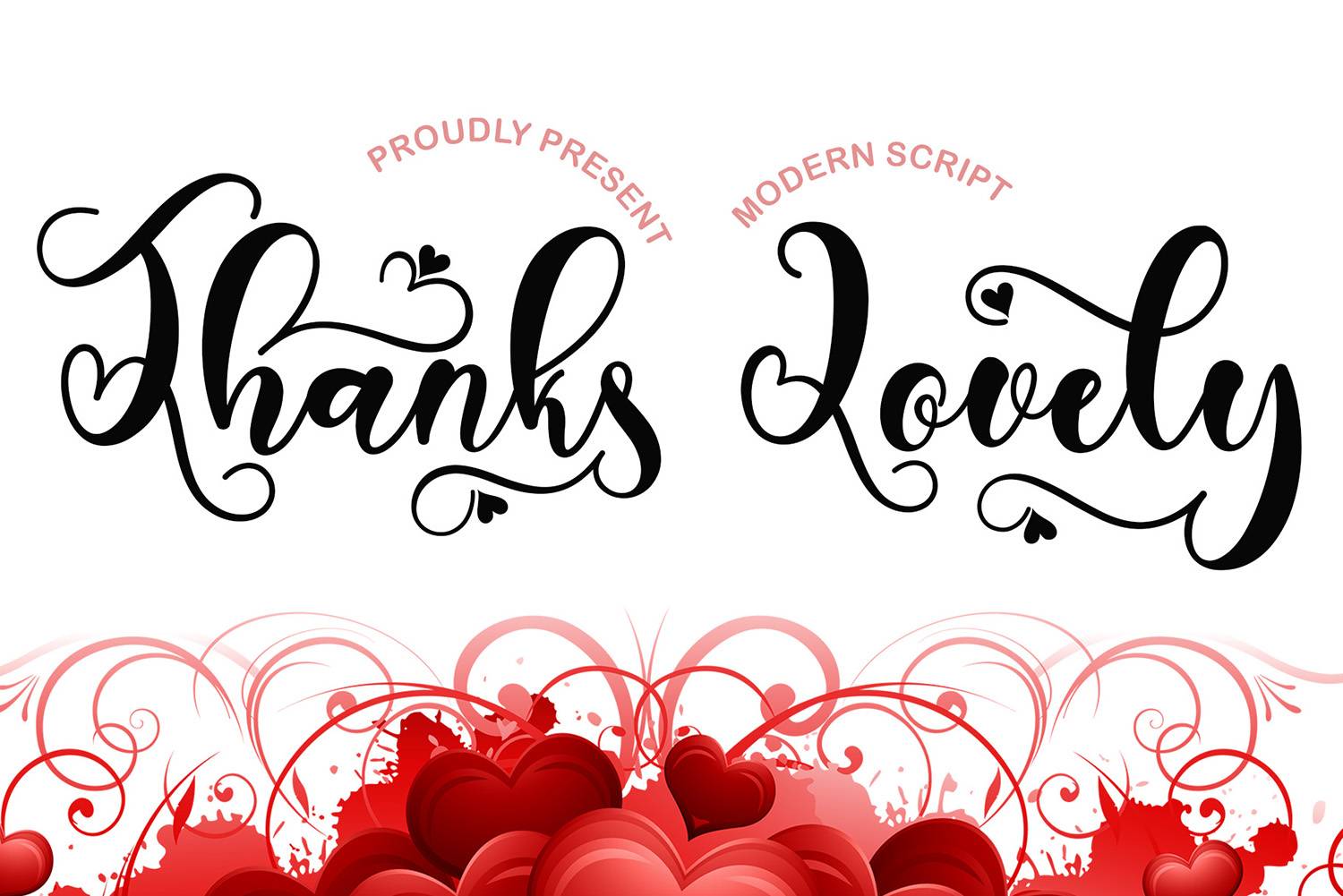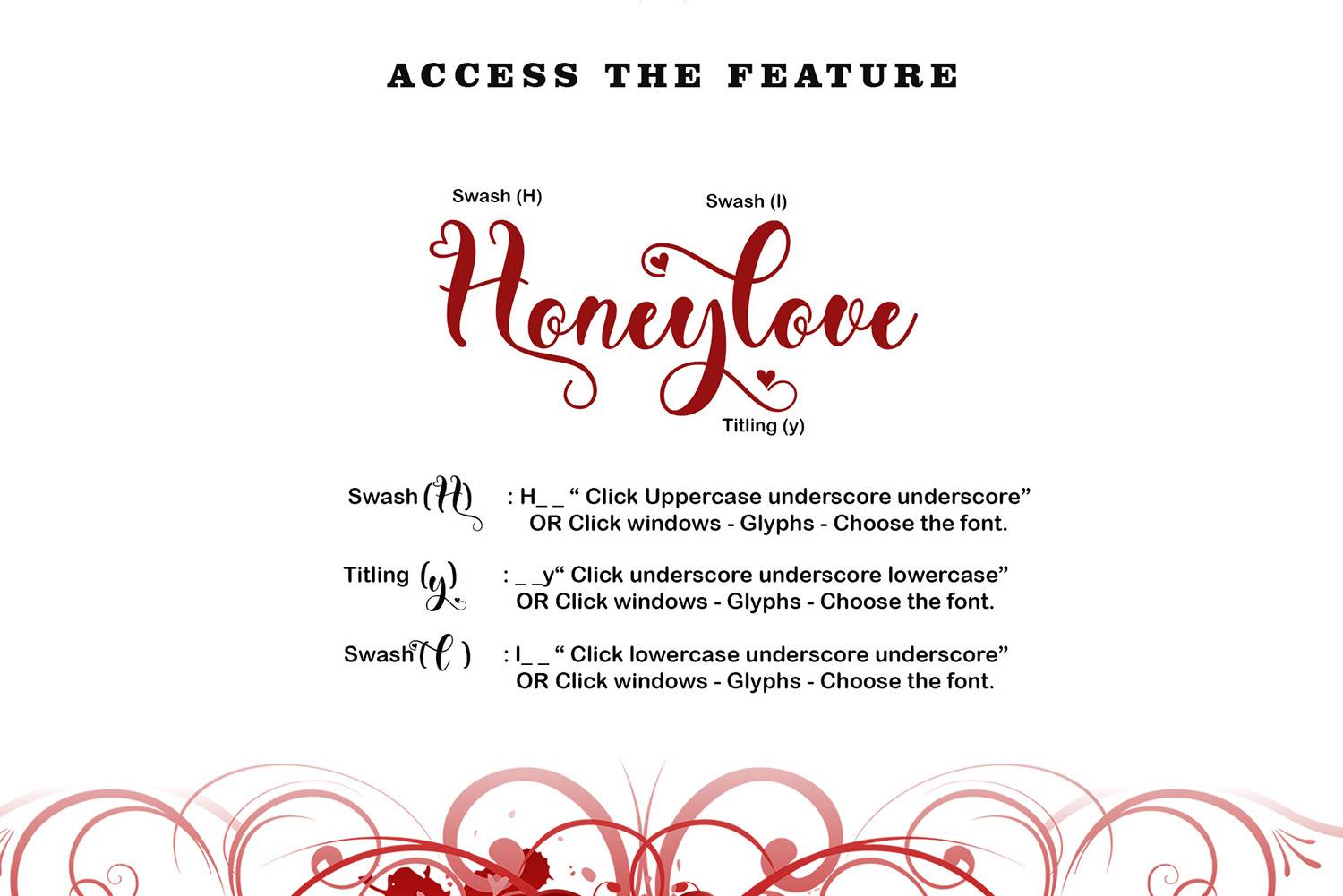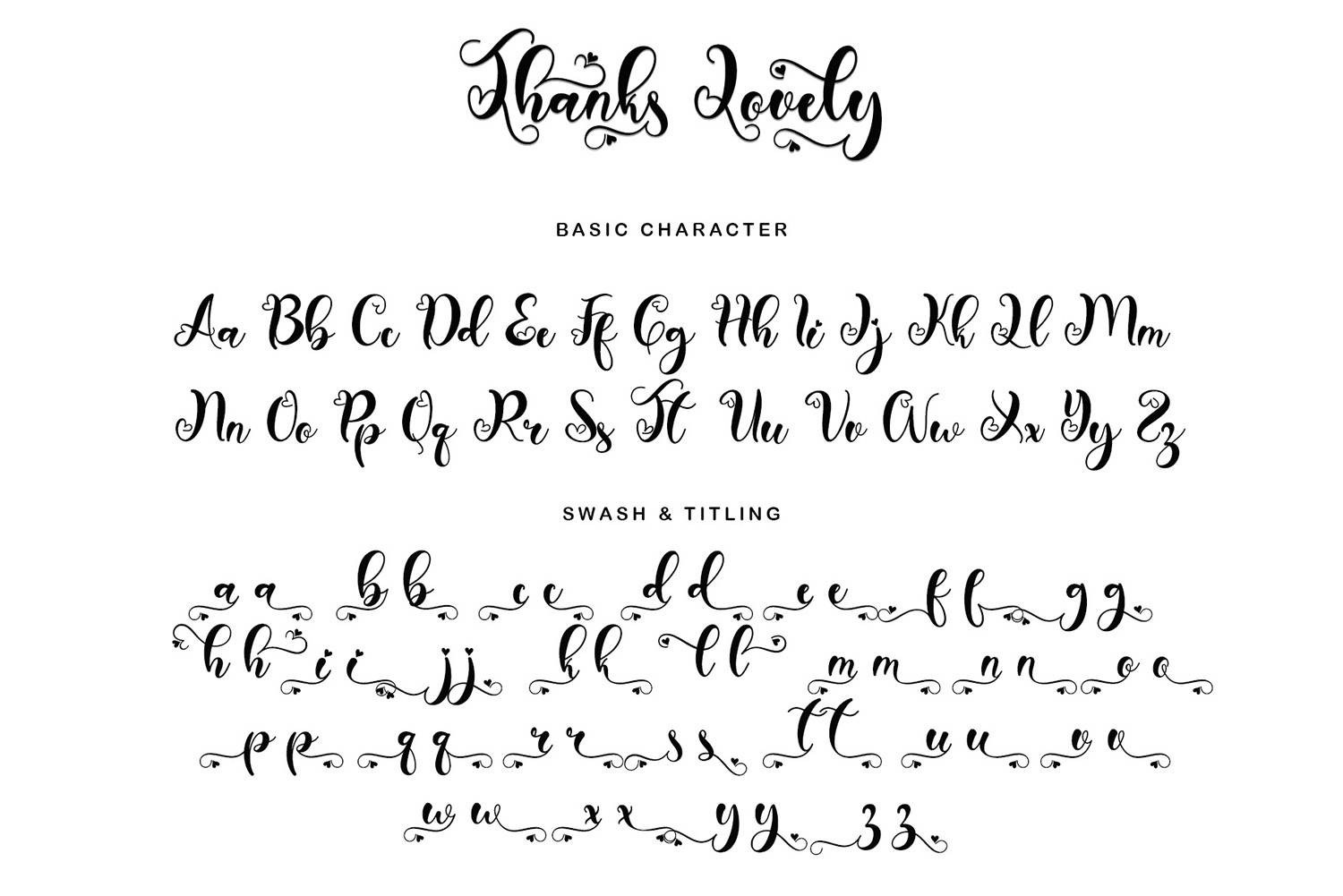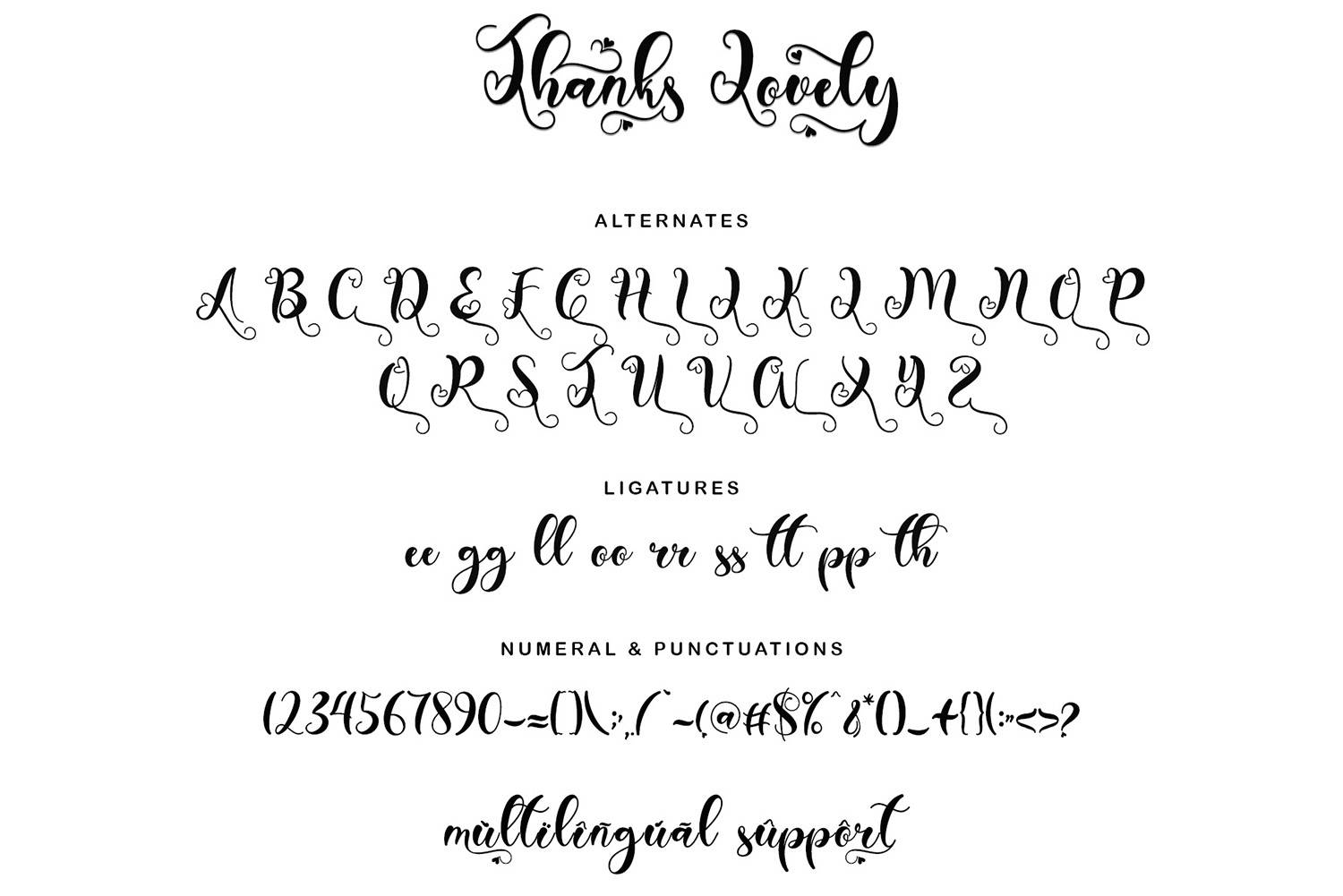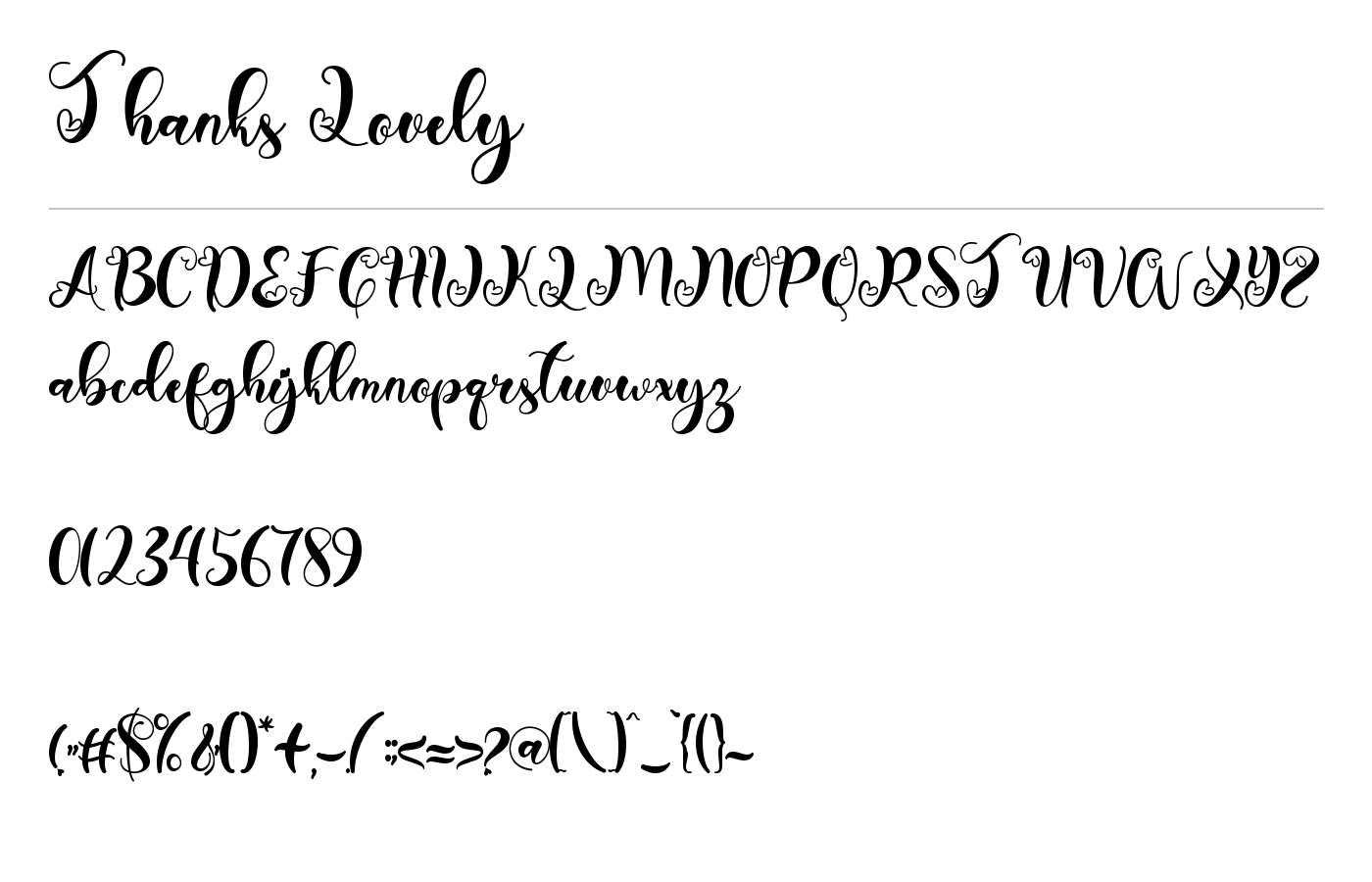
Thanks Lovely Font is an elegant, decorative script with flowing strokes and charming swashes that give it a romantic and playful feel. Its medium weight and smooth curves make it perfect for invitations, greeting cards, and branding that seeks a warm, handcrafted touch. This font works beautifully in display settings where a touch of sophistication and personality is desired.
Thanks Lovely Font